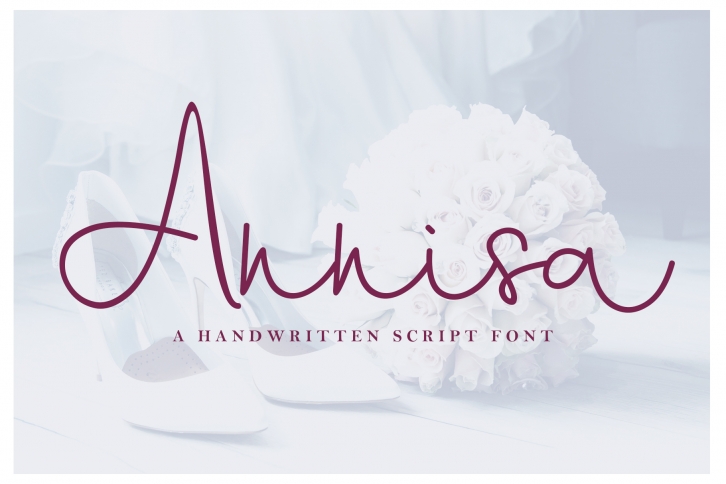
Annisa Script is a trendy and unique font with an authentic style. It was designed by aldedesign and it's a great choice for creative people who need such a font. It was released on April 9, 2018 and the file size is 6.37 MB. Annisa Script will add an organic vibe to any design idea!